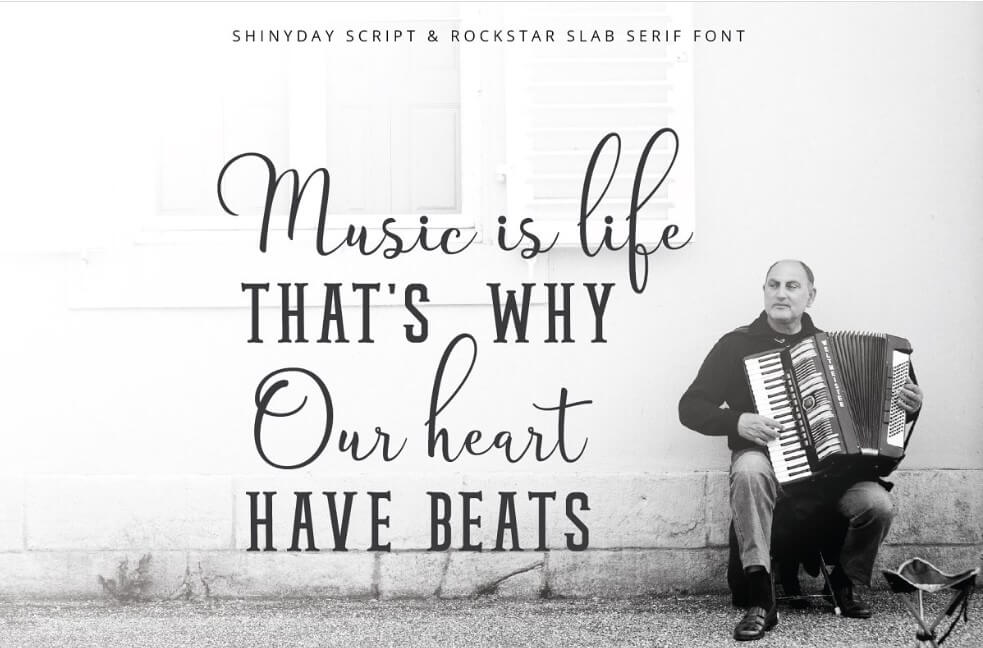
Shinyday And Rockstar Font Duo
Shinyday And Rockstar Font Duo is a luxury script but fancier as the preceding example. It strikes the highest quality stability between those two resulting in a contemporary style with sharp letterforms and inventive flavor.
Style of Shinyday And Rockstar Font Duo Free